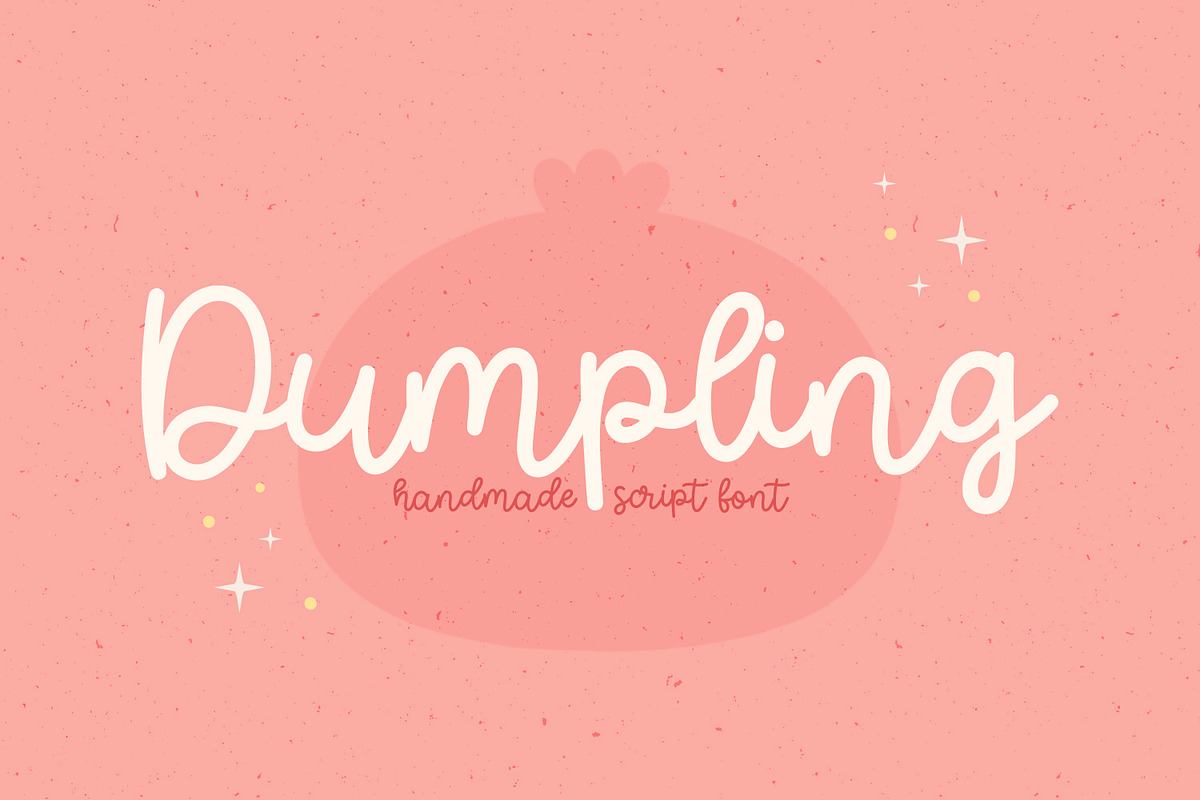
Dumpling Cute Script Font Free Download
Dumpling Cute Script Font Free Download is an adorable, hand-lettered typeface that brings a sweet and playful energy to your design work. With its rounded strokes, bubbly curves, and charming personality, this font is perfect for greeting cards, kids’ merchandise, logos, quotes, and social media graphics. It’s the kind of font that instantly makes your design feel friendly, fun, and full of heart.
Designed for both cuteness and clarity, Dumpling maintains excellent readability while adding a whimsical vibe. Whether you're creating a pastel-themed brand or a joyful event invite, this font adds that cozy, creative touch that stands out.